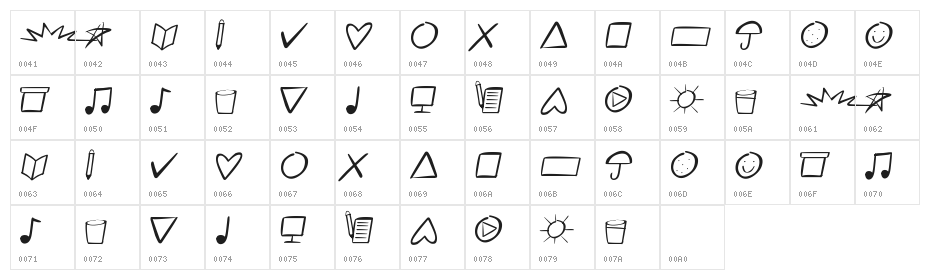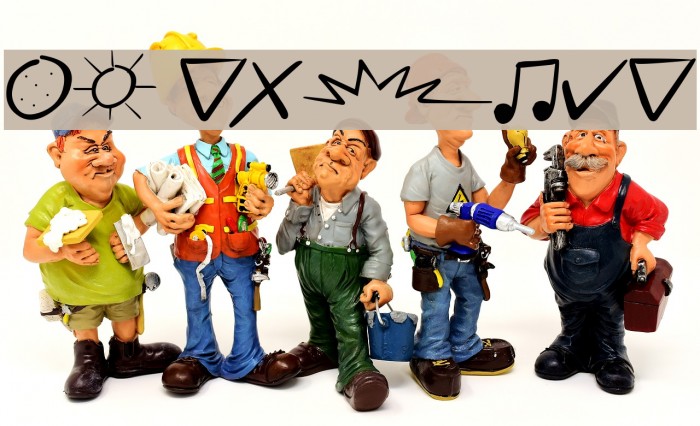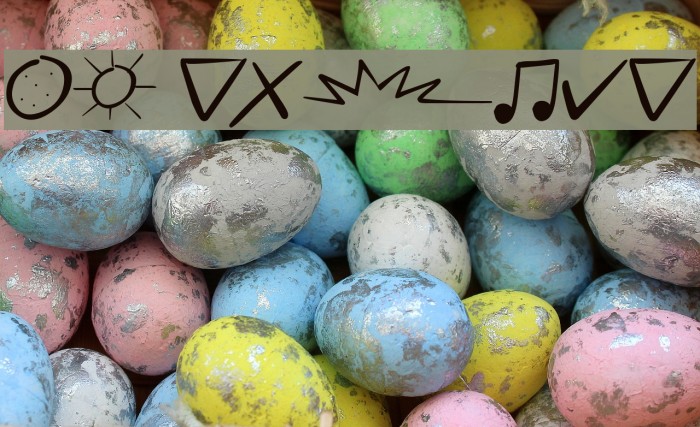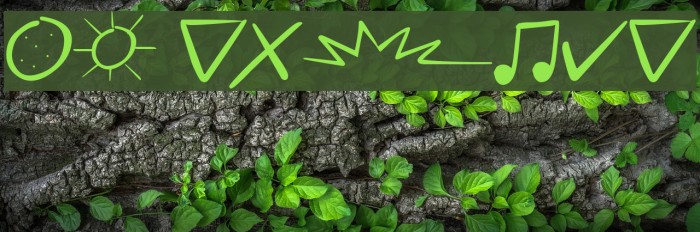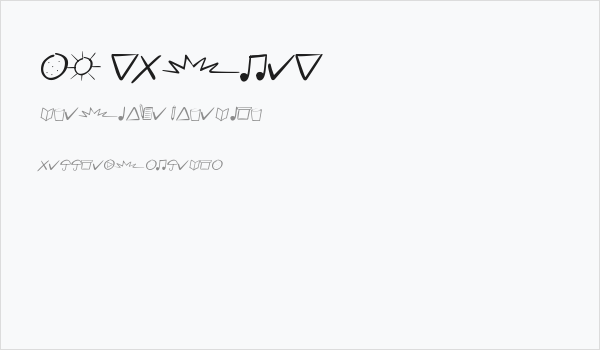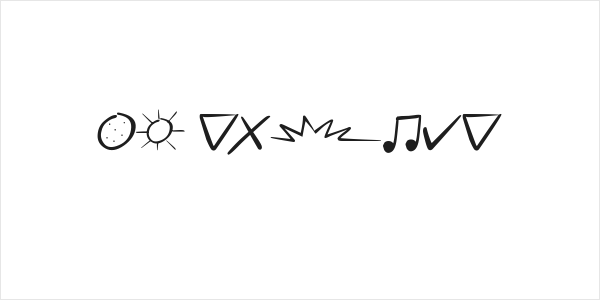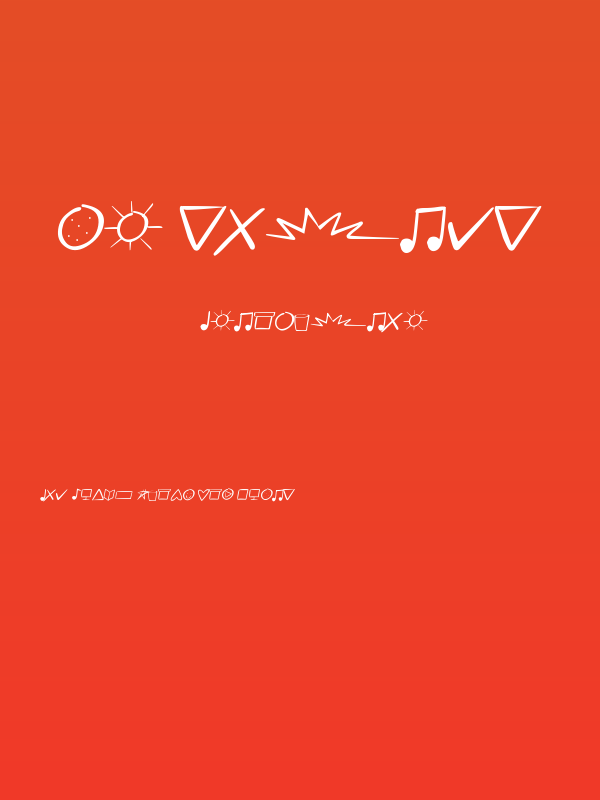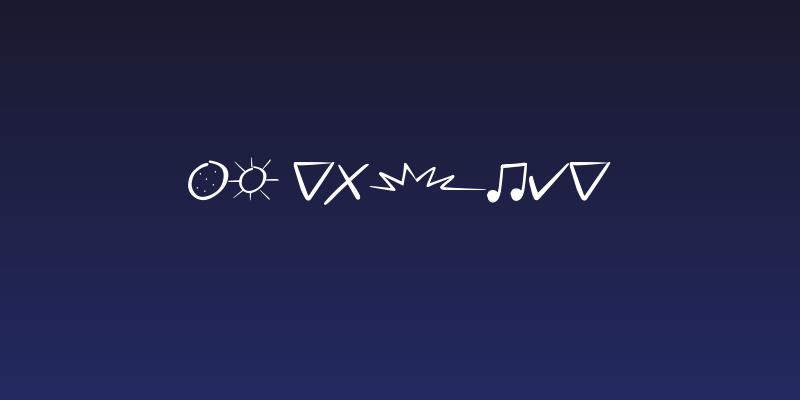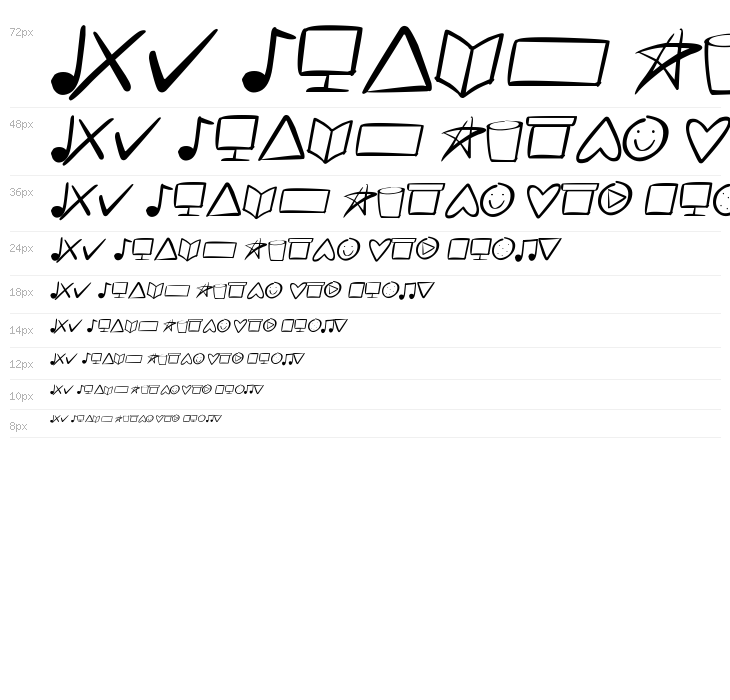
My Shapes Font
My Shapes Description
This collection features a diverse array of playful and bold shapes, each with a unique and whimsical design. The set includes a variety of symbols such as stars, hearts, musical notes, and geometric shapes, all rendered with a hand-drawn aesthetic. The lines are thick and consistent, giving each character a strong presence. The style is informal and fun, making it ideal for creative projects that require a touch of personality and flair. The shapes are well-defined and easily recognizable, ensuring clarity in any application.
| Use Case | Logos, Posters, Creative projects |
| Proposed Projects | Ideal for creative projects like children's books, playful branding, greeting cards, and educational materials. |